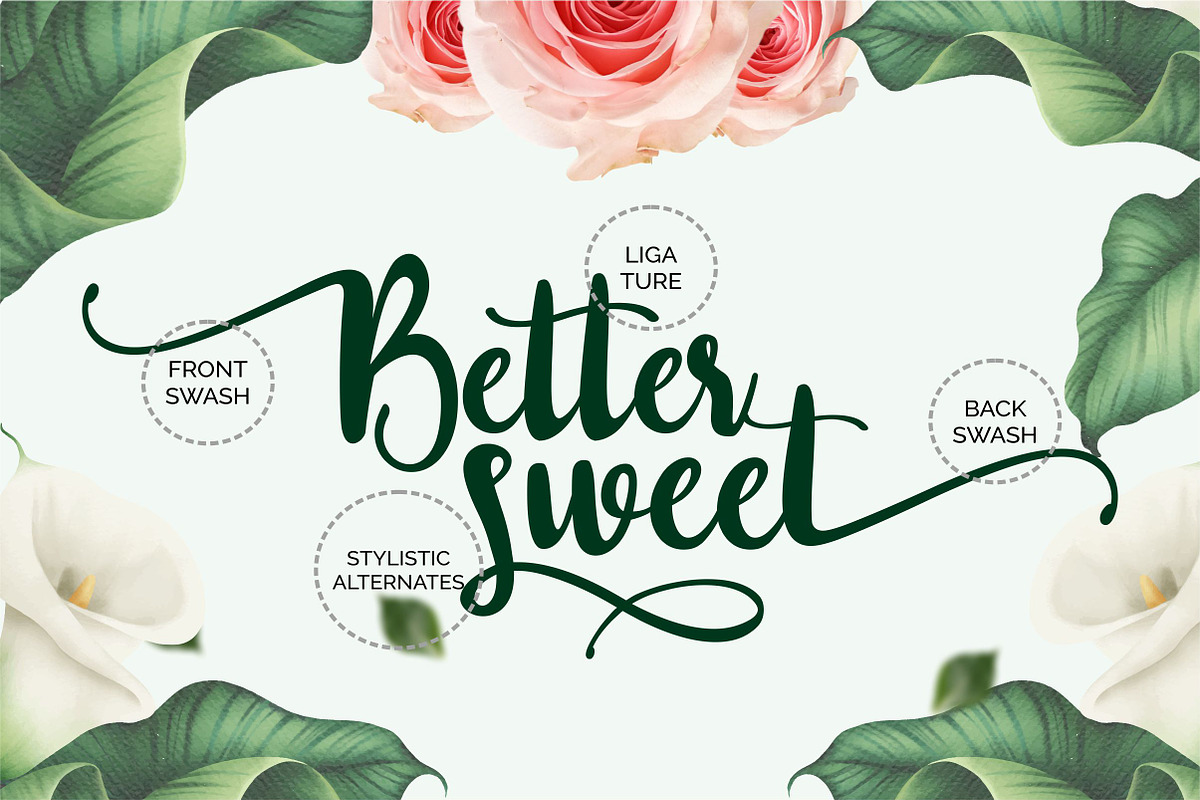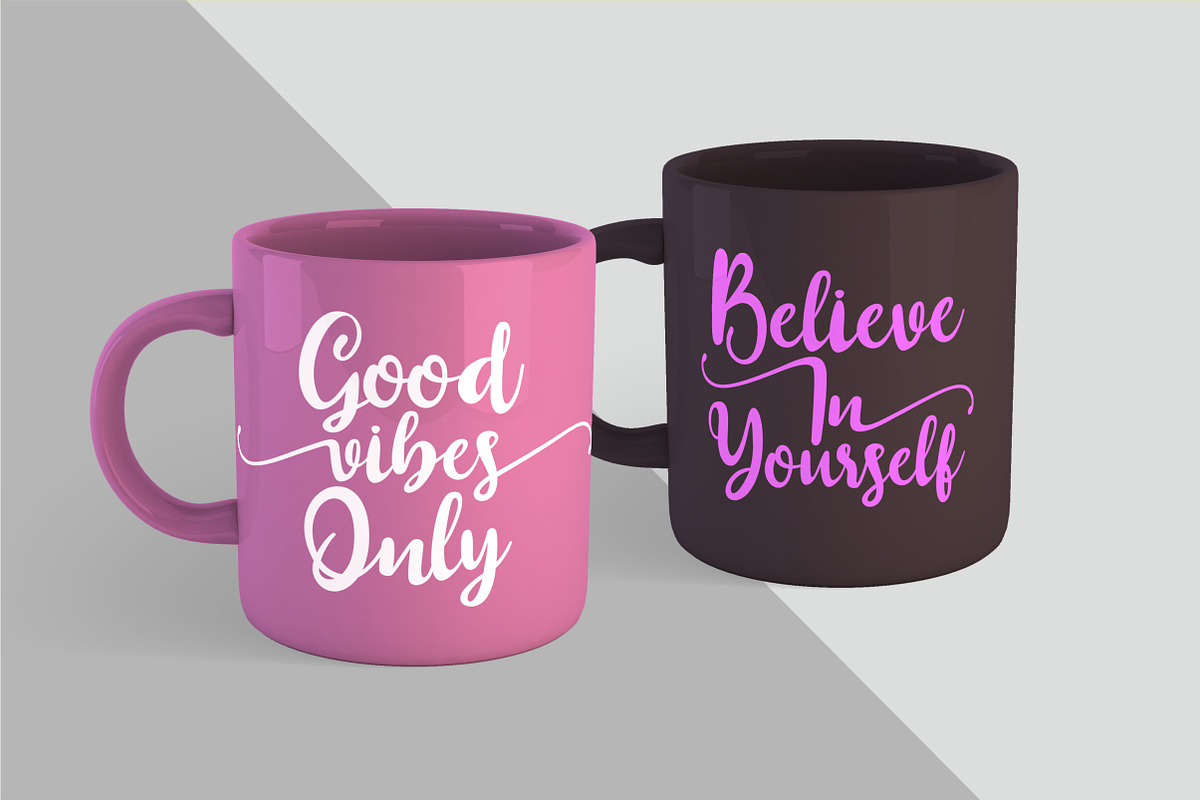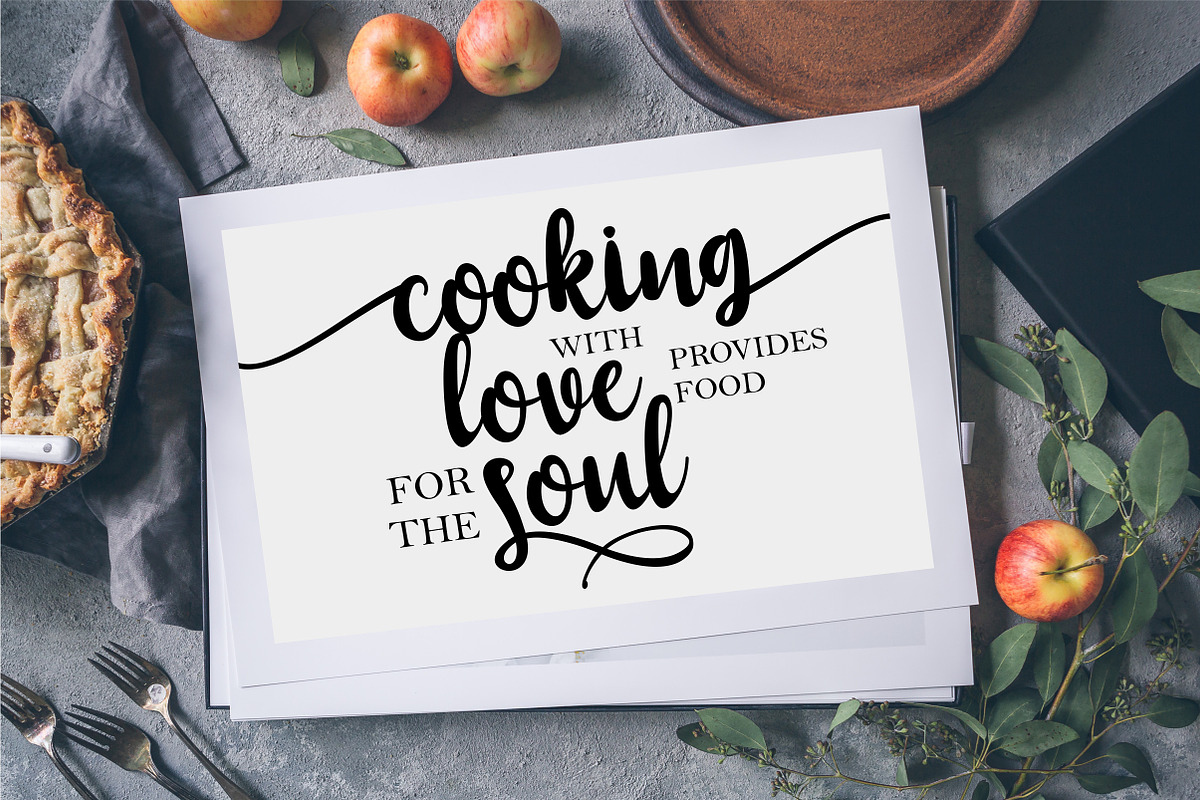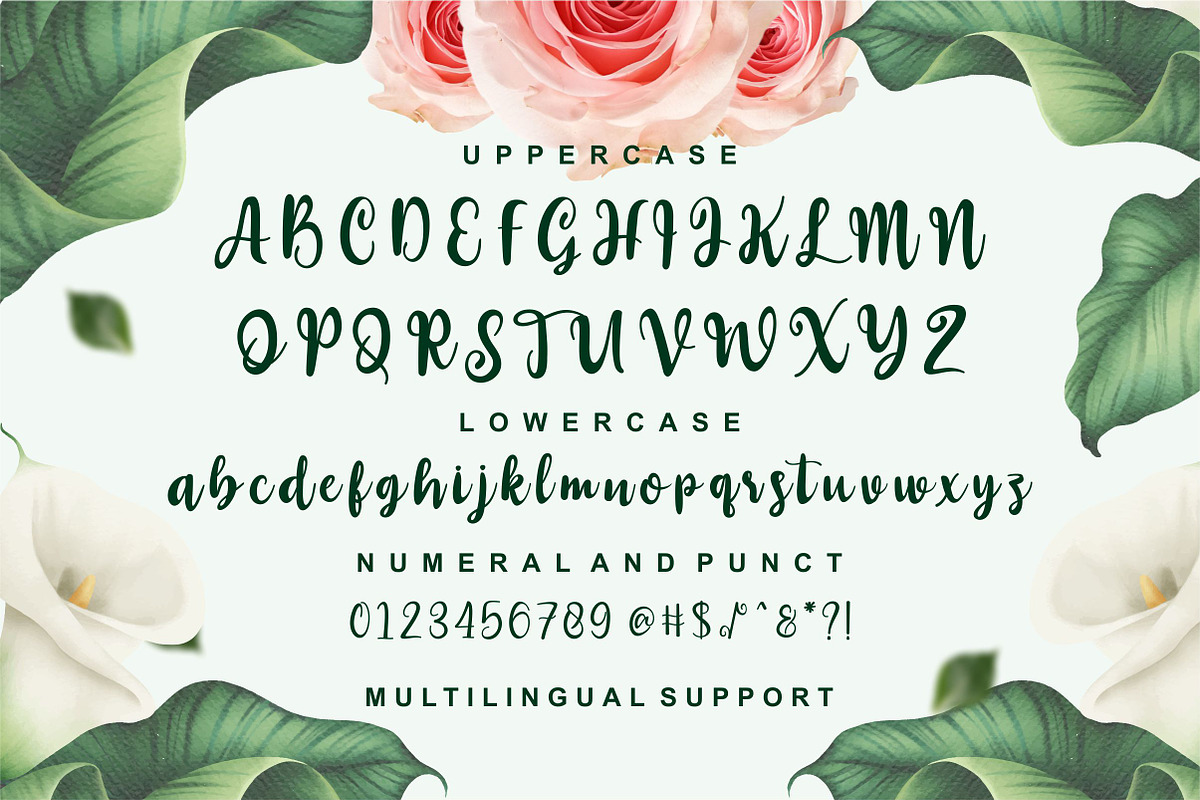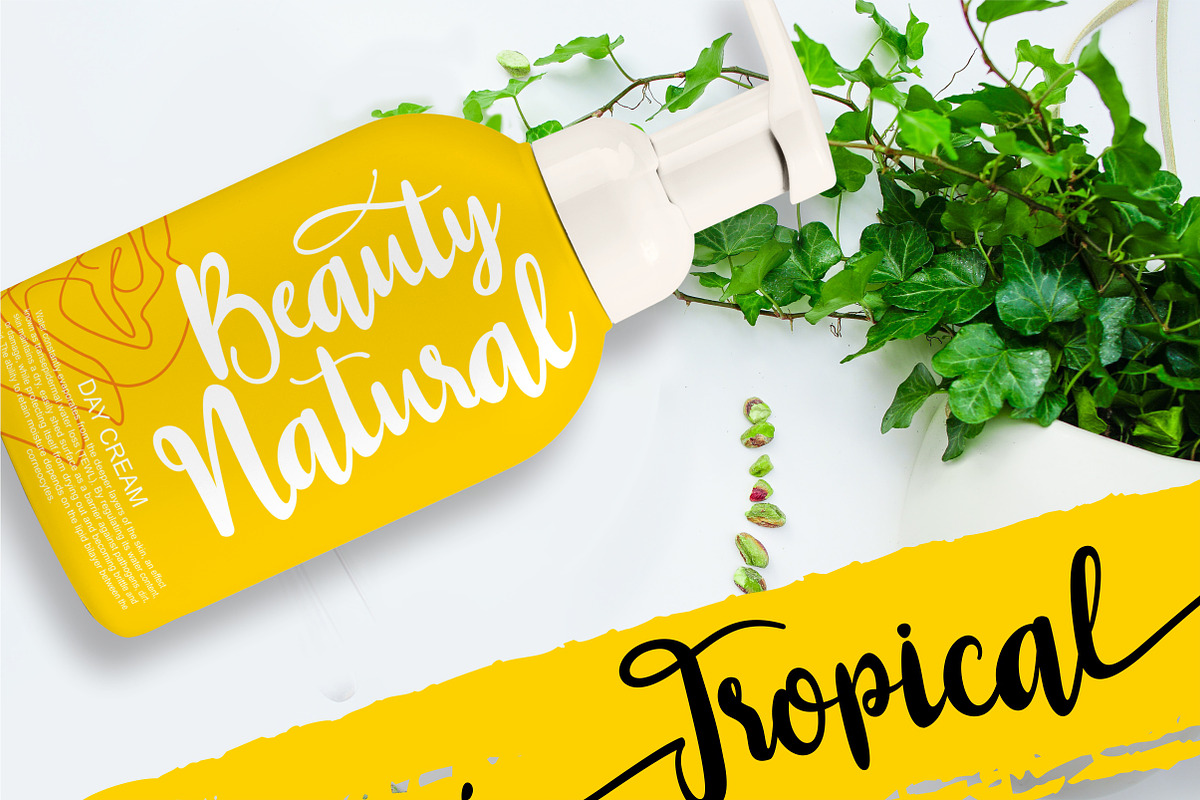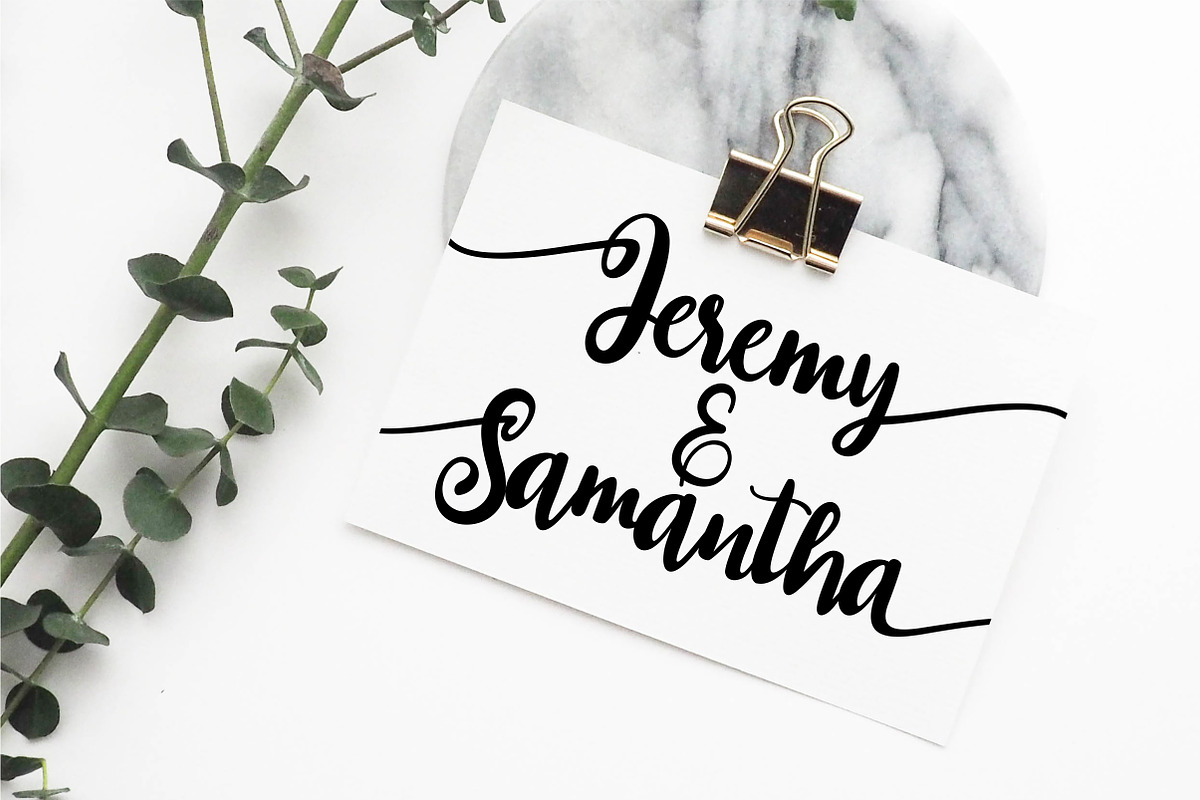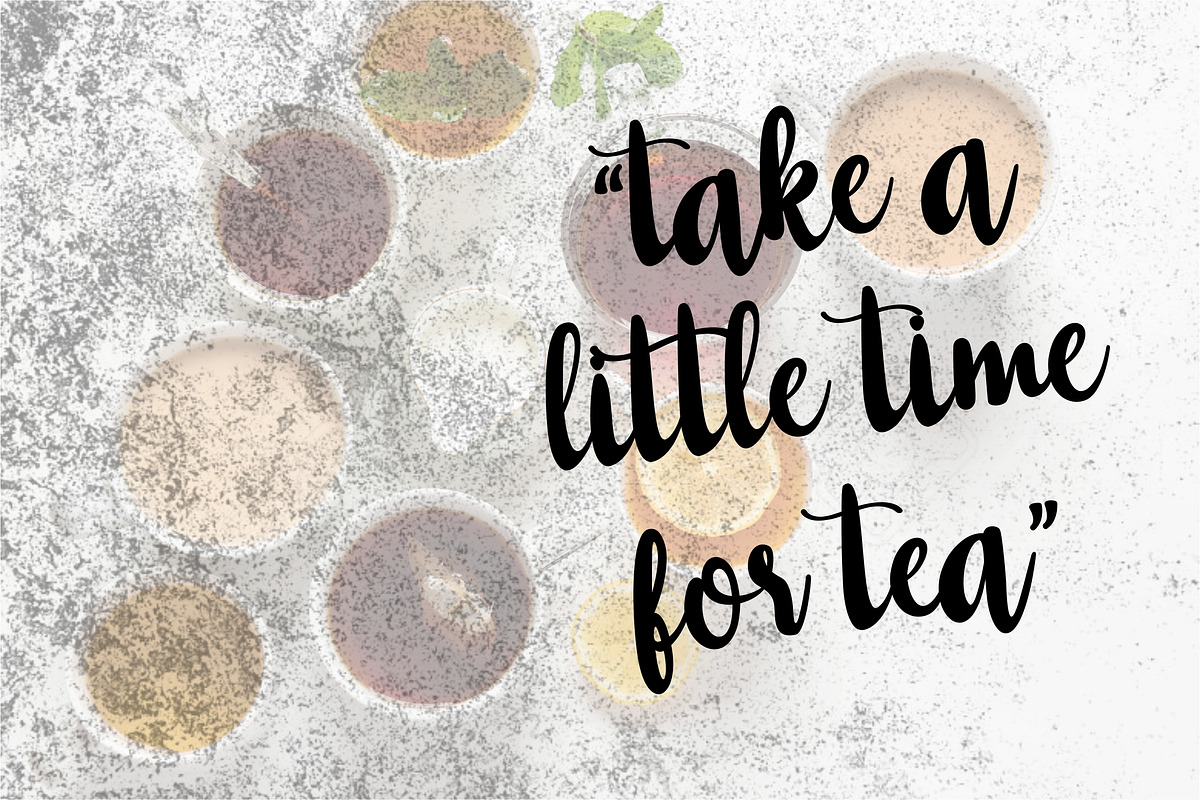
Westline - Lovely Font
Introducing Lovely font Westline Script this font looks modern and awesome in many way to your latest project. Westline is perfect for logos & branding, photography, invitation, watermark, advertisements,product designs, stationery, wedding designs,label ,product packaging, special events or anything that need special taste.
Westline - Lovely Font by ErgibiStudio fits naturally into Branding, posters, packaging, typography.